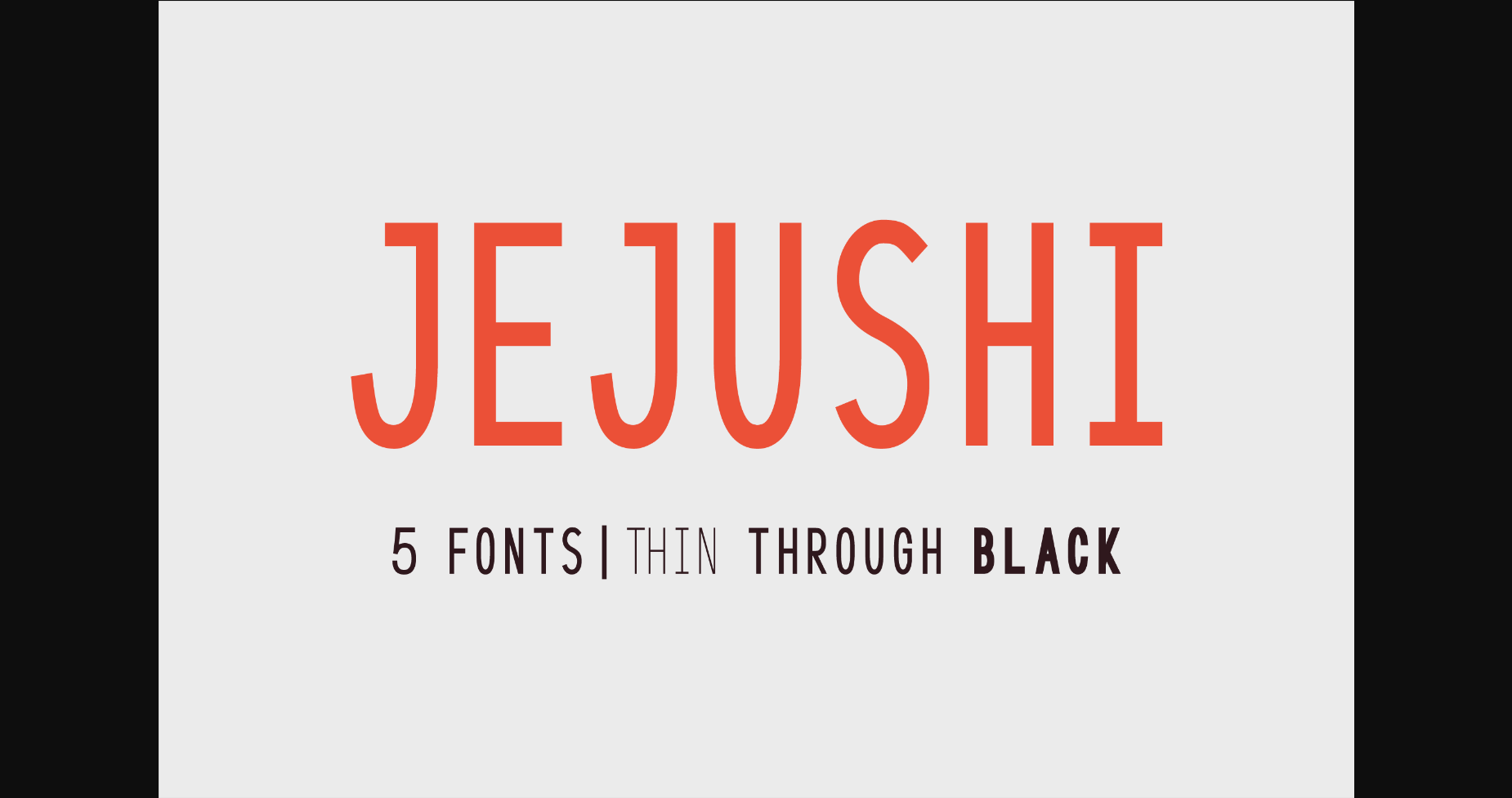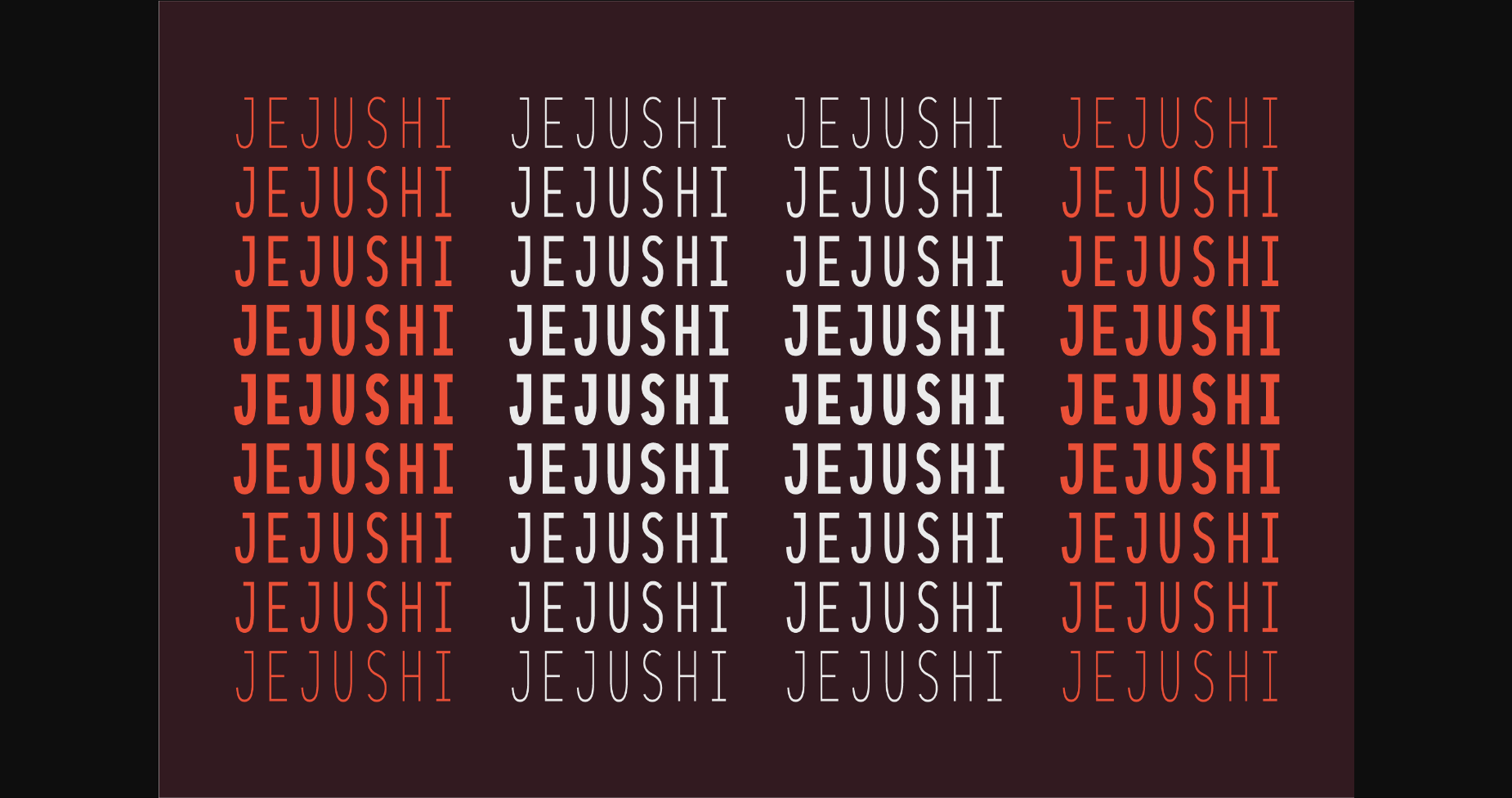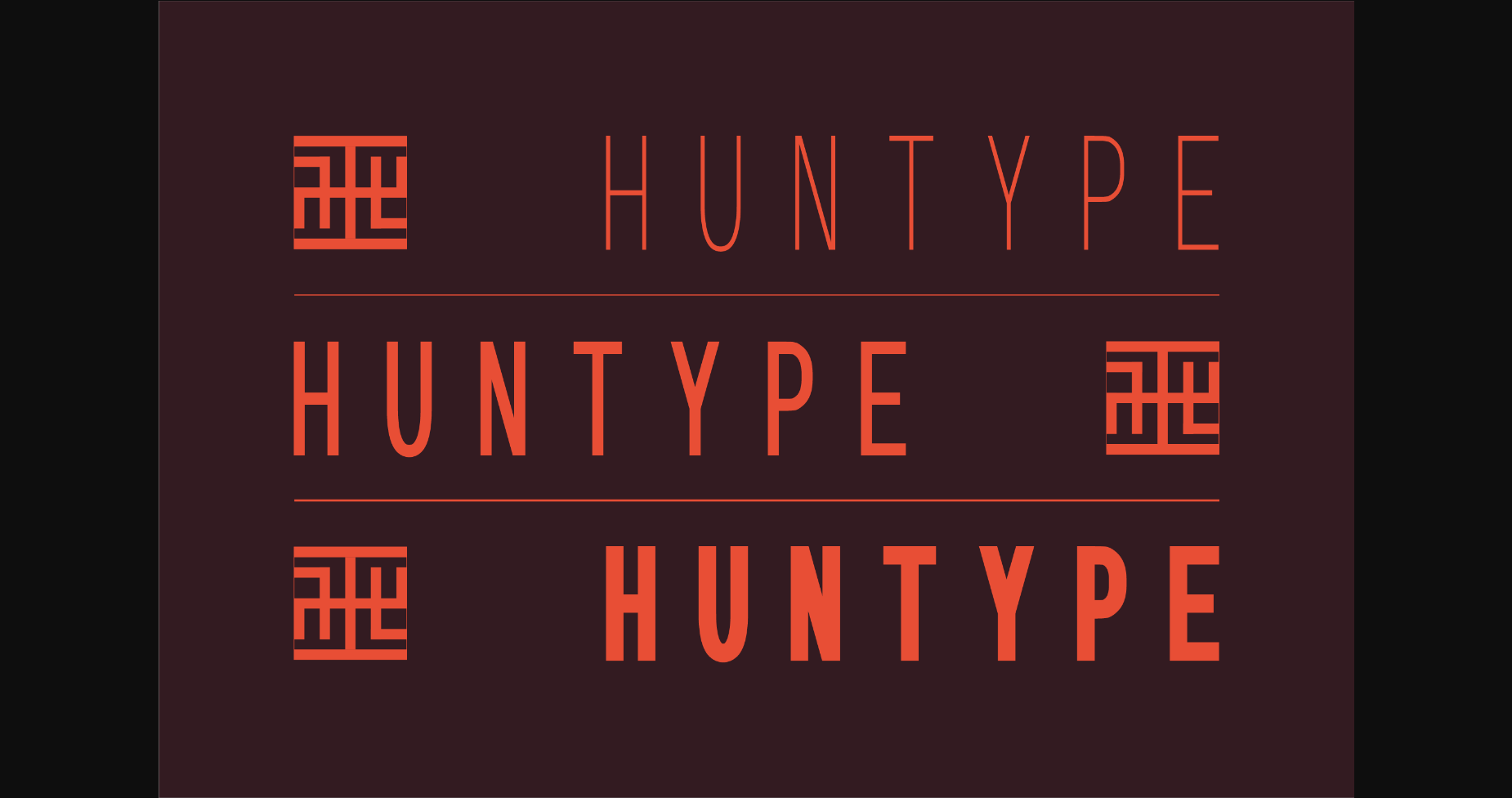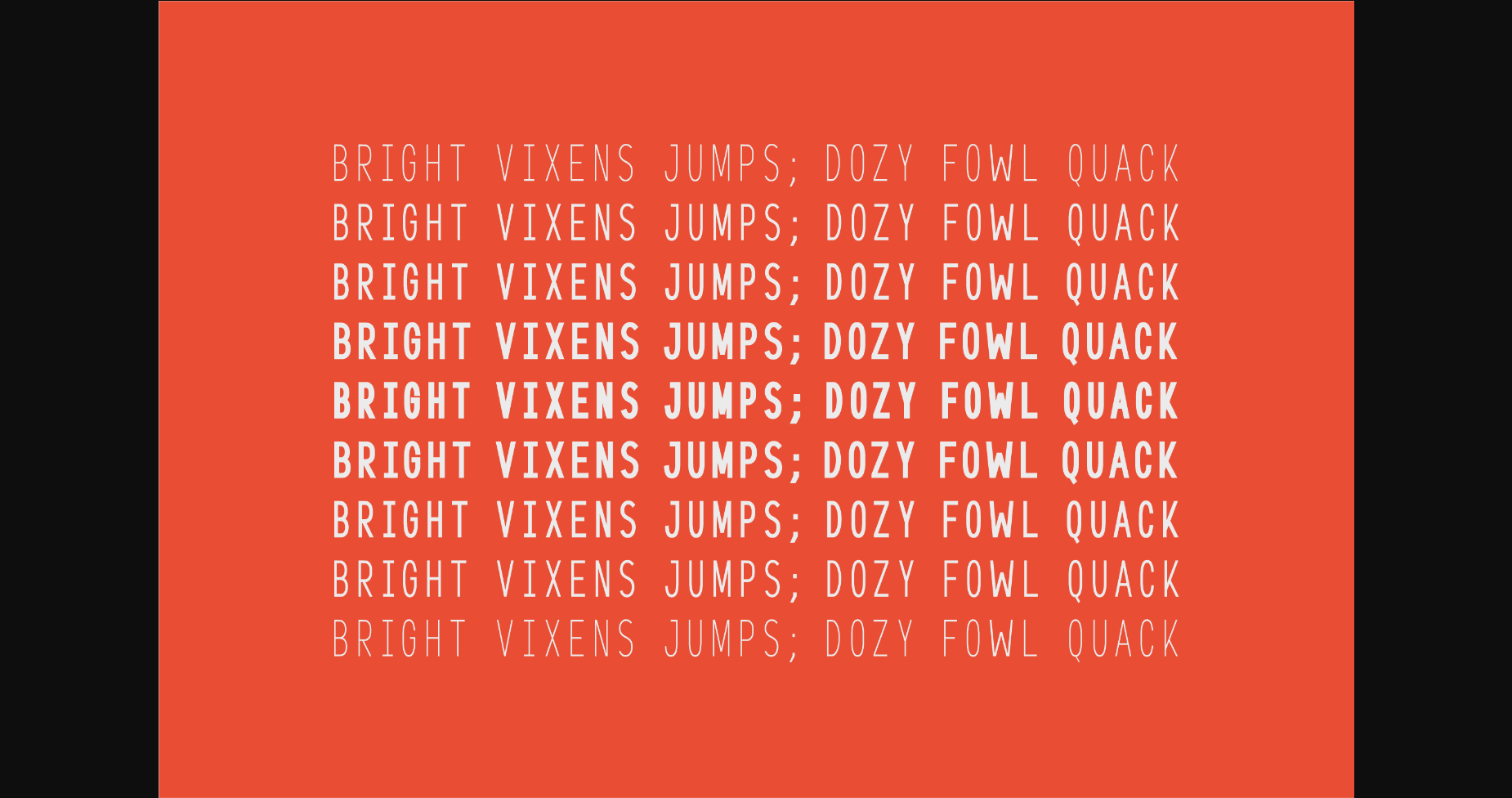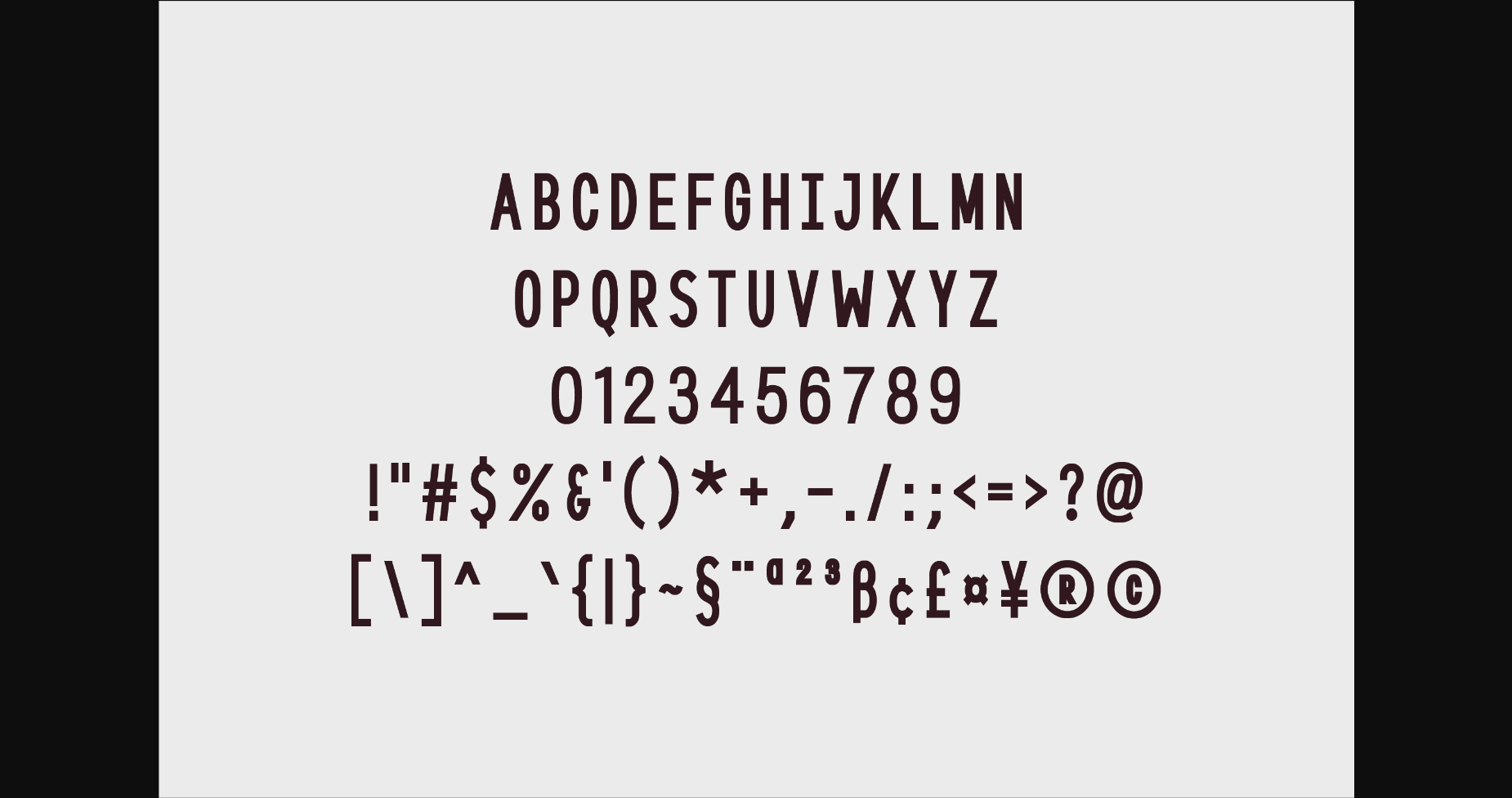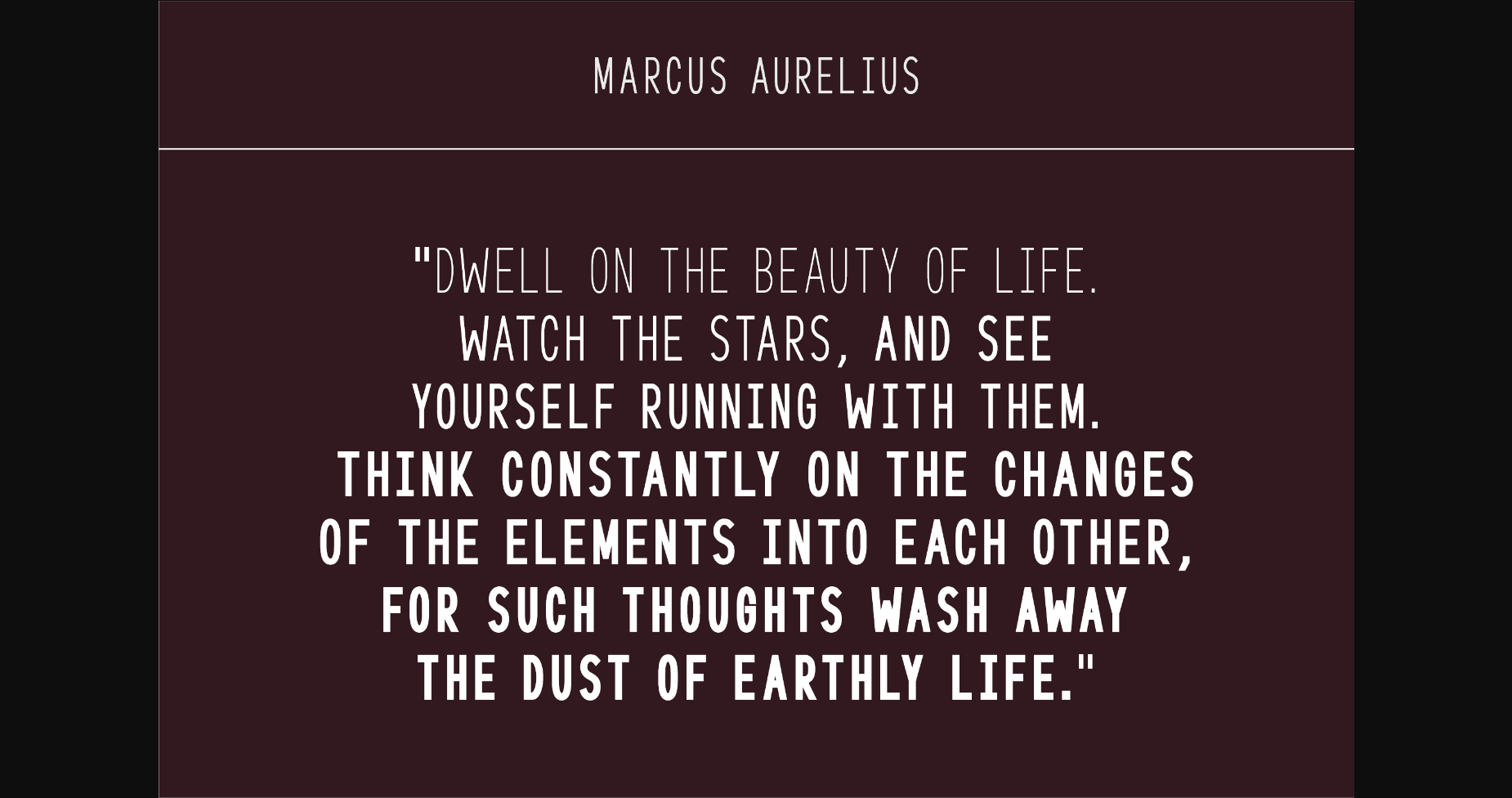
Jejushi Font
About Jejushi Font
With smooth and clean lines, and just a touch of contrast, Jejushi works beautifully for logos, branding, and web headings.